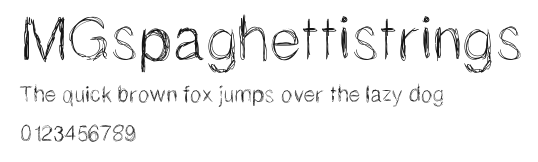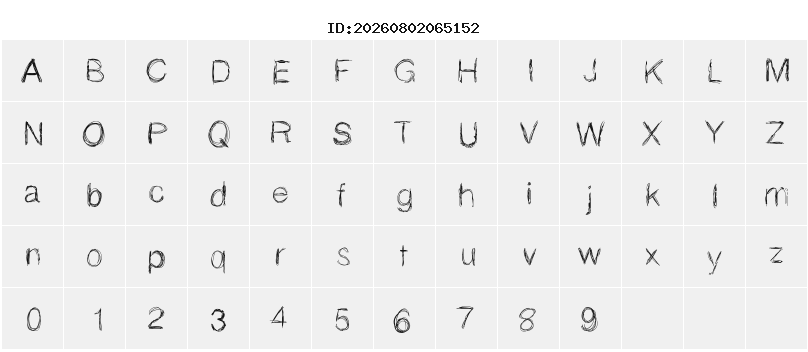
MGspaghettistrings Preview
About MGspaghettistrings.ttf
MGspaghettistrings.ttf is a modern, elegant sans-serif font designed for ultimate readability and visual harmony. Perfect for branding, headlines, web design, and print materials.